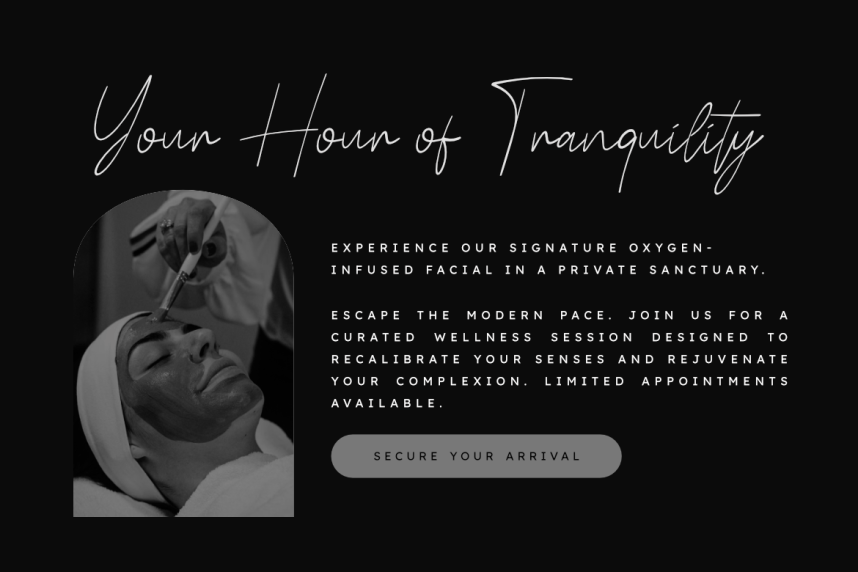
Natacha – Modern Signature Script Font
Natacha – Modern Signature Script Font is a sophisticated and modern signature script font, thoughtfully designed to capture the essence of personal charm and contemporary storytelling. With its fluid, expressive strokes and smooth connections, Natacha offers a professional aesthetic that brings a touch of refined intimacy to any creative project.
This font is the ideal choice for designers looking to add a professional yet high-impact personal touch to their work. Whether you are crafting a striking lifestyle brand identity, a sleek fashion logo, or elegant wedding invitations, Natacha provides a seamless blend of modern calligraphic edge and timeless luxury.